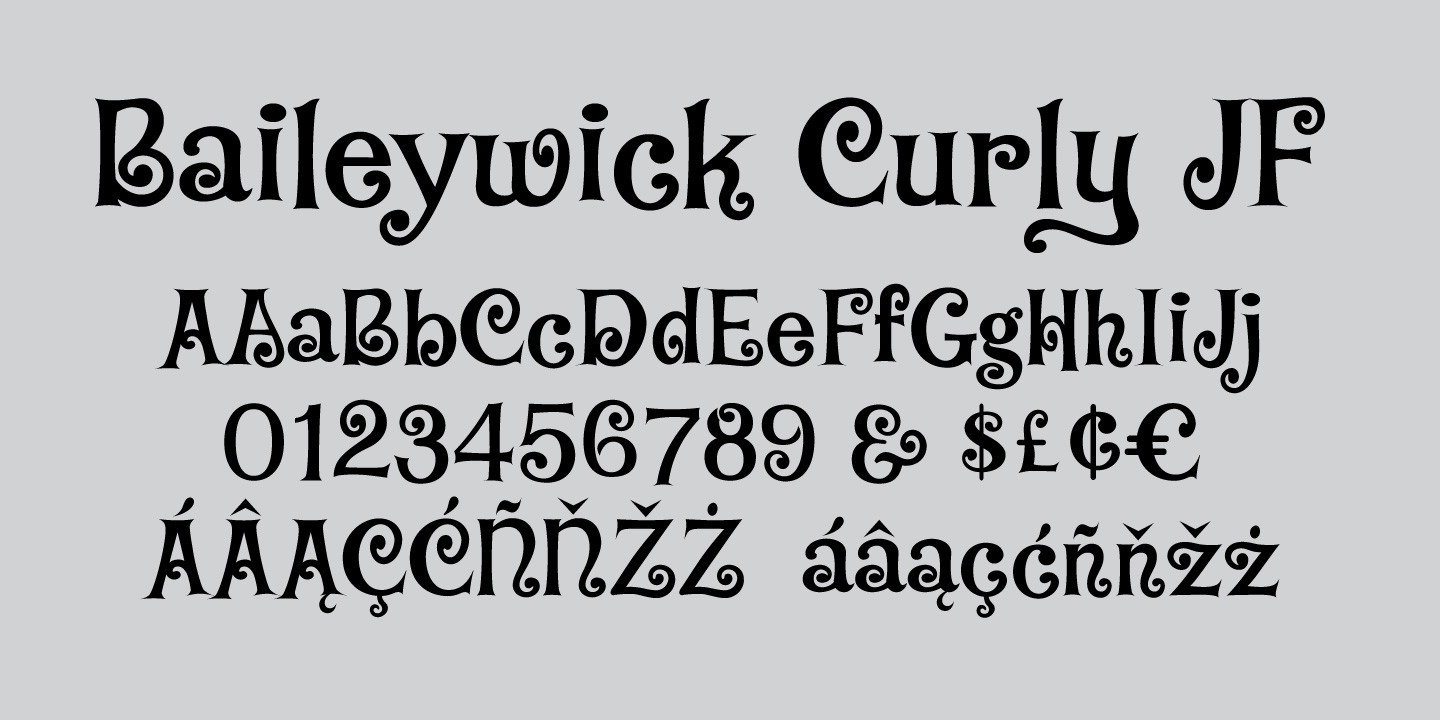
The Baileywick JF Font is perfect for medieval themed restaurants, historical reenactment event posters, fantasy gaming graphics, castle tour marketing materials, Renaissance fair signage, medieval manuscript reproductions, gothic literature book covers, historical museum exhibitions, and period drama production titles.
What makes the Baileywick JF Font so exciting is its authentic medieval character that instantly transports viewers to the enchanting world of knights, castles, and ancient traditions. This captivating typeface embodies the noble dignity and historical grandeur that defines medieval culture, creating an immediate impression of authenticity and historical authority. The font's baileywick character communicates the traditional craftsmanship and historical depth that medieval-themed businesses need to attract audiences who appreciate authentic historical experiences and seek genuine connections to the rich heritage of medieval civilization and courtly traditions.
The Baileywick JF Font family includes Regular weight featuring complete uppercase and lowercase character sets, comprehensive numerical collections, essential punctuation marks, and medieval decorative elements that maintain the historical aesthetic throughout your period-themed and medieval heritage design projects.
Medieval entertainment businesses and historical organizations consistently select Baileywick JF Font Free Download for projects that require authentic historical appeal and medieval communication. This exceptional typeface excels in environments where establishing historical credibility and medieval authenticity is crucial for attracting visitors and customers who value genuine historical experiences and medieval cultural immersion. The font's baileywick character helps communicate the quality and historical accuracy that medieval enthusiasts expect from established historical attractions and authentic period entertainment providers.
The distinctive qualities of Baileywick JF Font reflect the rich traditions of medieval culture where craftsmanship, honor, and historical continuity created lasting cultural legacies and meaningful historical experiences. Each character demonstrates the careful attention to historical detail and cultural respect that characterizes successful medieval-themed businesses and historical education enterprises. The font's proportions and spacing create perfect balance between historical authenticity and contemporary readability that modern heritage businesses require for effective historical communication and period marketing.
Contemporary historical enterprises appreciate how Baileywick JF Font communicates medieval authenticity and historical excellence. Whether designing materials for castle venues, creating branding for medieval festivals, or developing marketing for historical tourism experiences, this font delivers the authentic character that distinguishes genuine historical immersion from generic fantasy theming. The typeface works exceptionally well for businesses emphasizing historical accuracy, medieval craftsmanship, and the noble appeal of authentic medieval culture and courtly traditions.
The versatility of Baileywick JF Font extends across multiple historical applications and medieval marketing initiatives. Historical societies utilize its authentic character for educational materials and heritage preservation communications. Medieval restaurants choose it to communicate their commitment to period authenticity and historical dining experiences. Renaissance festivals rely on its noble appearance to attract visitors seeking authentic medieval entertainment and historical cultural experiences.
Digital historical platforms benefit from Baileywick JF Font's optimized performance across various medieval applications and historical communication channels. The font maintains its baileywick character whether displayed on heritage websites, mobile historical apps, or digital medieval educational materials. This technical reliability ensures consistent brand presentation across all historical communication platforms and medieval cultural engagement scenarios.
The emotional impact of Baileywick JF Font resonates with audiences who appreciate medieval history and seek authentic connections to the noble traditions and cultural richness of medieval civilization. The typeface serves as a visual gateway to historical understanding and medieval cultural appreciation that helps historical businesses build meaningful relationships with visitors who value authentic historical experiences and medieval heritage preservation. This connection to historical authenticity and medieval nobility makes it invaluable for establishing credible historical brand identities.
Historical marketing specialists and medieval design professionals recognize Baileywick JF Font as an essential tool for authentic period branding. The font captures the essence of medieval culture while making historical authenticity accessible to contemporary heritage businesses who want to communicate their commitment to historical accuracy, medieval traditions, and the noble appeal of authentic medieval cultural experiences in today's historical tourism marketplace.